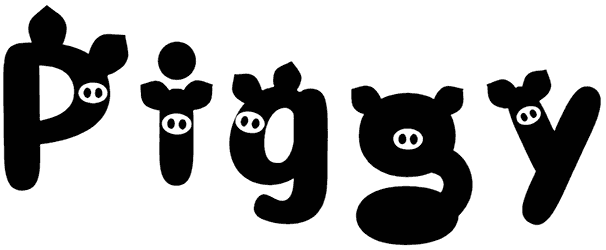
Piggy Font
Piggy is a beautiful animal font, excellent for bringing fun to your designs. The strong, bold letters have beautiful pig-like noses and curling tails to give each design a lively and unique personality.
Piggy, despite its lack of numbers and letters, will generate a smile for your audience, whether you’re making a party invitation, a greeting card, or just brightening up your social media posts. So hurry and download Piggy from RB’s font store to give your projects some oink!